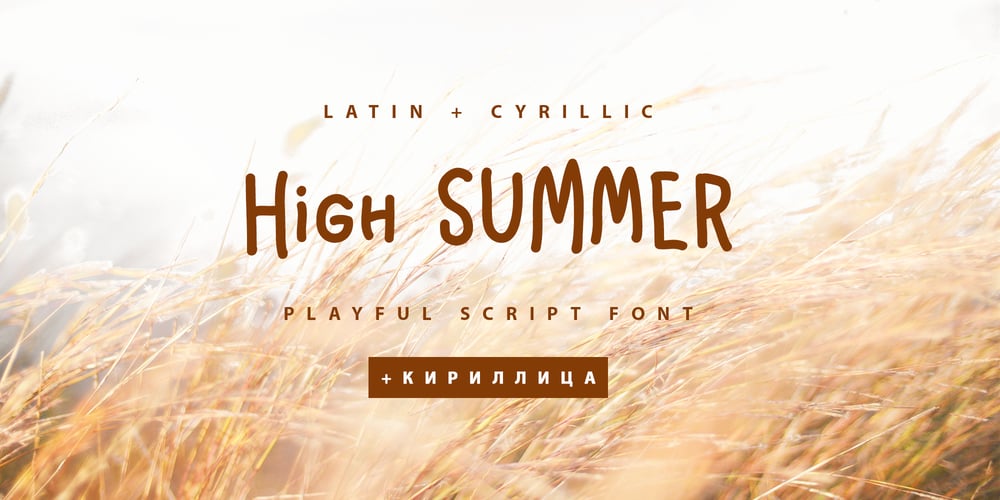
High Summer Cyrillic Font Family was designed by Iryna Dviliuk and published by Ira Dvilyuk. High Summer Cyrillic contains 1 styles and family package options. High Summer Cyrillic playful script font is a pretty hand-drawn monoline font that will look gorgeous on all your designs, wedding stationery, love stories, branding materials, monoline logos, pretty teenage stickers, business and wedding cards, calligraphy Insta quotes, elegant fashion sketches, calligraphy love monograms and much more.High Summer playful script font contains the Cyrillic glyphs too. High Summer playful script font contains a full set of uppercase and lowercase letters and can be used to create a handwritten calligraphy look.Multilingual Support for 31 languages: Latin glyphs for Afrikaans, Albanian, Basque, Bosnian, Catalan, Danish, Dutch, English, Estonian, Faroese, Filipino, Finnish, French, Galician, Indonesian, Irish, Italian, Malay, Norwegian Bokmål, Portuguese, Slovenian, Spanish, Swahili, Swedish, Turkish, Welsh, Zulu.And Cyrillic glyphs support Ukrainian, Belorussian, Bulgarian, and Russian languages.(Does font support more Cyrillic languages just type a message in the text box below and see if all characters you’ll need are there.)Works perfectly on the Canva platform.For Cricut & Silhouette recommended.Thanks!